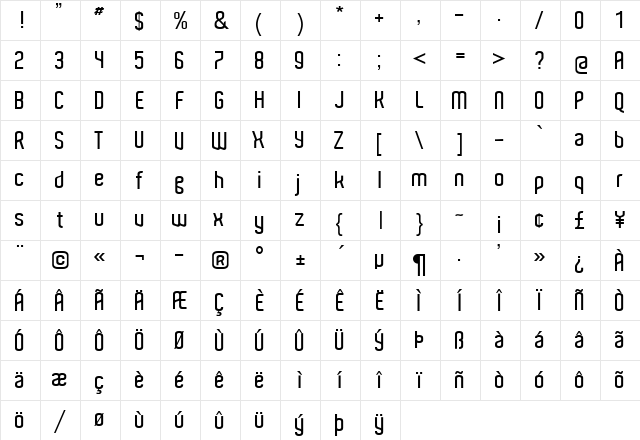
Aldo SemiBold
| Foundry | Sacha Rein |
| Designer | Rein Sacha |
Design Context for Aldo Typeface
Aldo offers clean, dependable letterforms without strong stylistic allegiance, making it a practical choice for designers who need flexibility. The heavy weight commands attention and anchors typographic hierarchies.